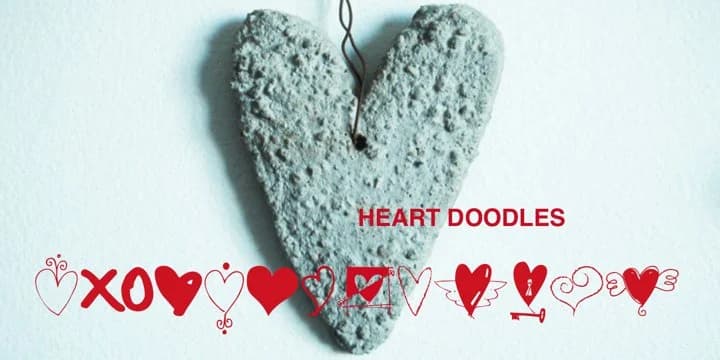
Heart Doodles by Outside the Line is a dingbat collection of hand-drawn hearts that feel tactile and sincere, built from the same casual sketching style as the designer's other Doodle fonts. You're working with 29 individual hearts here, and the clever part is the architecture: some stand alone as perfect accents, while others come in matching pairs that layer beautifully into repeating patterns or unified background treatments. This flexibility means you can build visual complexity from simple elements.
Think Valentine's Day card suites with stacked frames and layered hearts, wedding invitation sets where hearts tie the whole system together, handmade gift tags for boutique products, or scattered patterns across custom packaging for a small business. The variation in the set keeps things from feeling repetitive when you're filling space or building cohesion across a whole stationery line. You can mix and match, layer pairs, or use singles as punctuation throughout your layout. It's the kind of resource that works because it doesn't pretend to be formal or precious.
The hand-drawn quality means there's character in the imperfection, which reads warmer than geometric precision in most craft and celebratory contexts. Get Heart Doodles on Creative Fabrica to add this collection to your library.
Heart Doodles Font is a versatile dingbats font that works for both headings and body text. Pair it with a contrasting sans-serif or serif font to add visual interest and a clear distinction between titles and body copy.